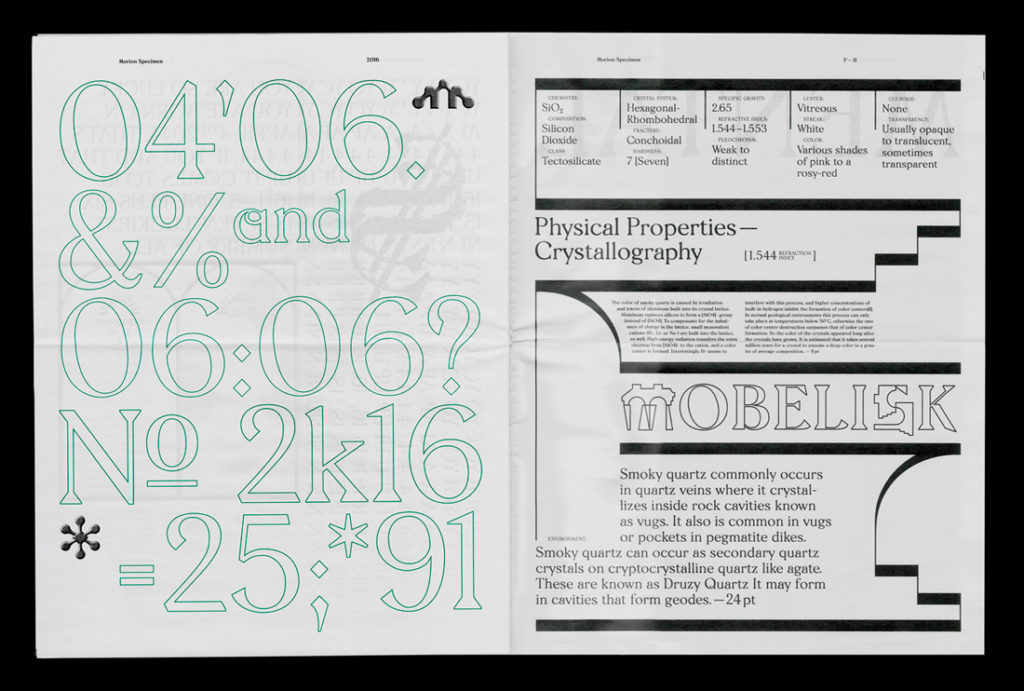
Name: Morion
Designer: David Einwaller
Foundry: TDF
Release Date: 2017
Back story: Three years in the making, Morion got its start when the designer began experimenting with calligraphic, serif-ish fonts that also had an edgy digital feel. “When I started to work on Morion, I didn’t have an exact aesthetic goal in mind,” Einwaller says. “I was trying to create something new while combining two diverse elements in type design. The battle between decoration and legibility was the biggest challenge.”
Why’s it called Morion? Einwaller’s hometown in Austria boasts the largest deposits of quartz in Europe, including the extra dark, smoky variety known as morion, a rare form that grows close to uranium deposits and is naturally black from proximity to the radiation. It fades to a lighter shade of gray when exposed to sunlight. He says, “The word morion suited the edgy design and also has two O’s—perfect to show off the font’s alternate O’s.”
What are its distinguishing characteristics? The typeface has a slightly Art Nouveau-ish quality thanks to floral terminals that contrast with its wedge-shaped serifs, lending a calligraphic look that still maintains balance and control. OpenType features like an alternative lower case ‘a’ increase legibility in smaller text sizes. Morion is available in two weights and supports Latin-A Extended alternates as well as more than 80 different languages.
What should I use it for? Morion’s ornamental forms function best in decorative display situations (the numerals are especially distinctive, and check out the uppercase O and R!), but the range of alternate characters simplifies it for text uses. It would be ideal for a museum catalog or exhibit about Art Nouveau, considering the influence that this era of design had on the typeface, and would also work well in editorial and advertising uses for cultural magazines and branding.
Who’s it friends with? “Since Morion is pretty decorative already, I’d pair it with some stable, classical sans-serif,” Einwaller says. “Neue Haas Grotesk or Folio are good choices.”